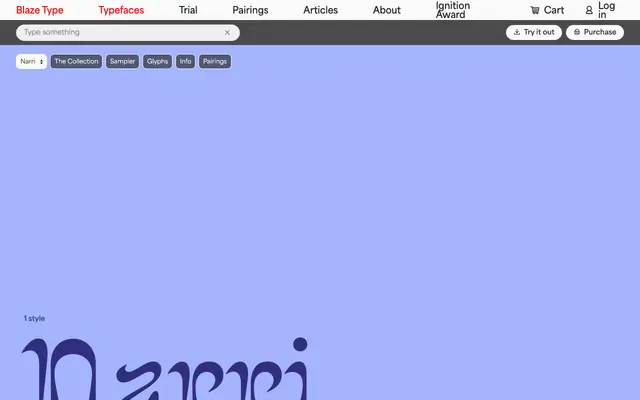
Narri
A single-weight calligraphic display face with inverted contrast and flame-inspired organic curves, designed for bold branding work.
Designed by Elsa Drevous and released in 2025, Narri draws on the dancing shapes of flames to produce a non-conformist calligraphic structure with strong inverted contrast and sharp stroke endings. The design sits outside classical calligraphic convention, blending influences to produce a distinctive character that works as either headline type or ornamental lettering. Suited to branding projects where a strong, immediately recognisable typographic identity is needed.
A single-weight display face with inverted contrast and organic calligraphic construction, clearly outside running text use and designed for decorative and branding applications.